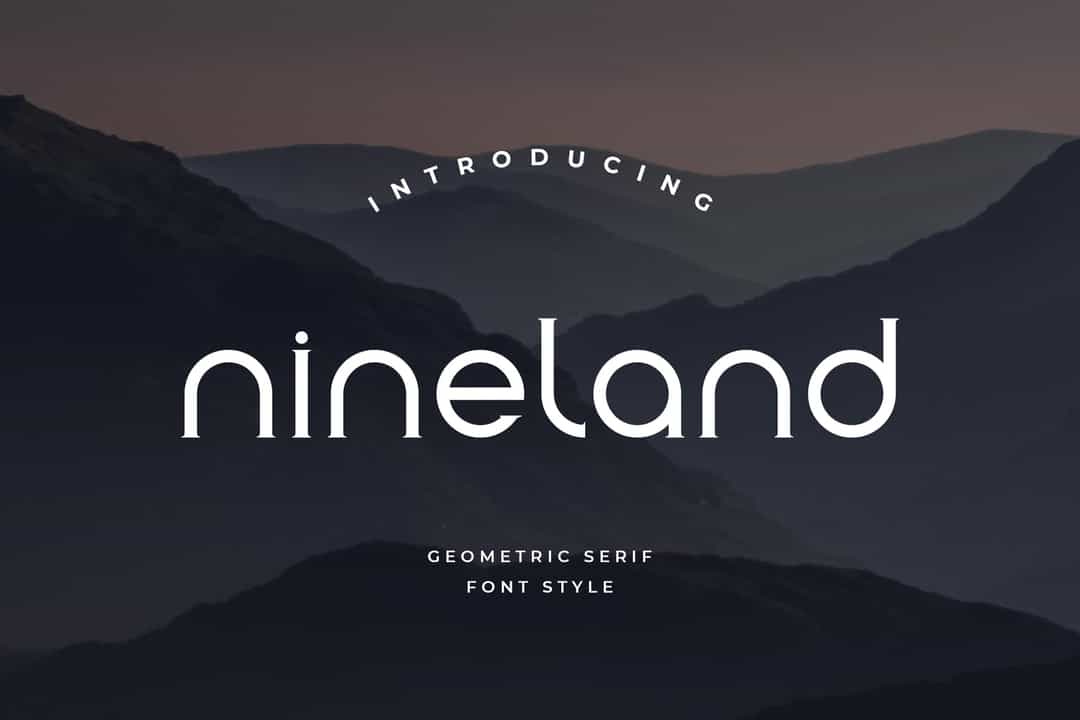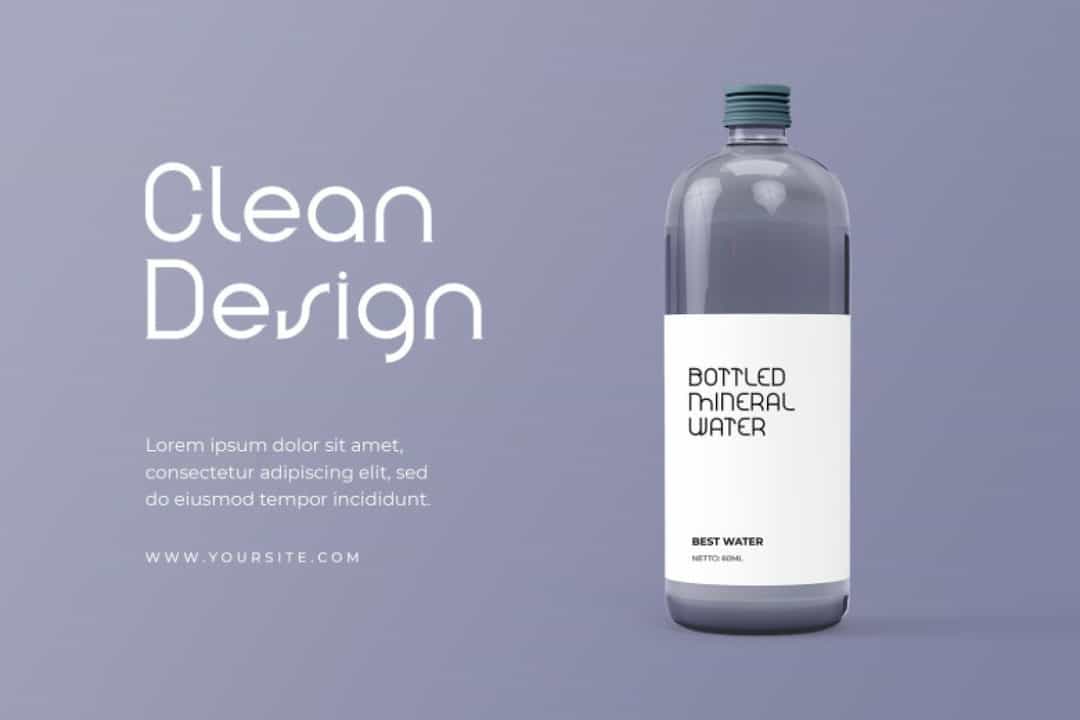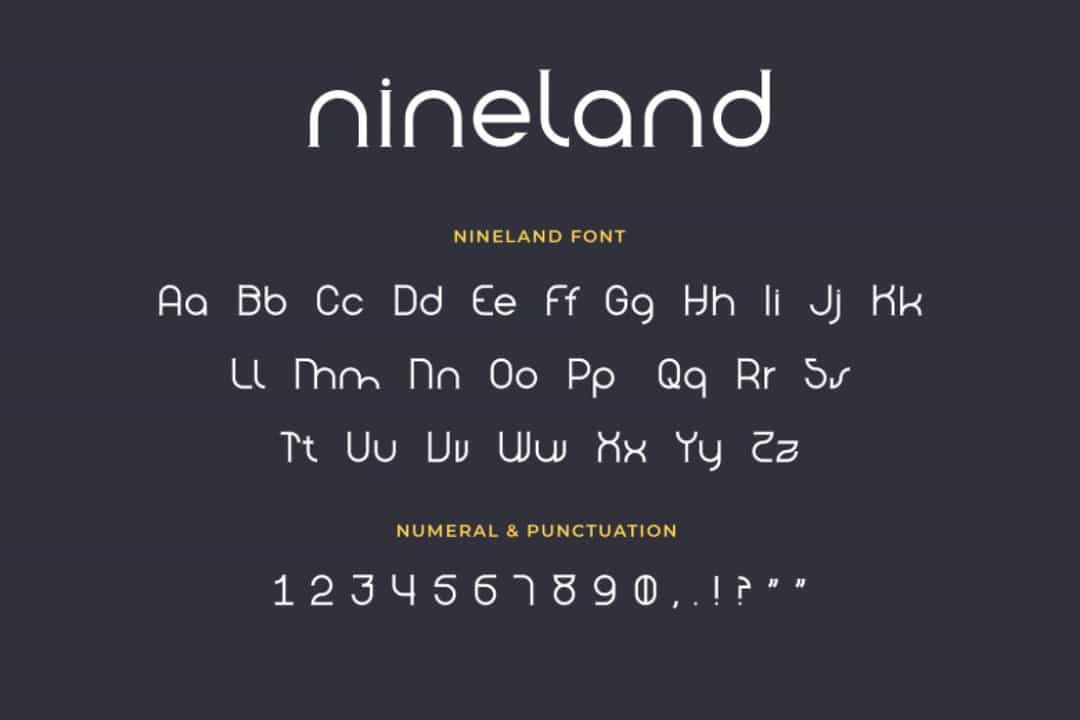
Discover Nineland Geometric Serif Font, part of the Serif Display Basic collection—a versatile and unique font perfect for adding a personal touch to your projects. Download it for free and enjoy crafting designs with style, from invitations to social media posts. This font is available exclusively for personal use, giving you the freedom to create without limits. Unlock your creativity with Nineland Geometric Serif Font today!
Nineland is a beautiful serif font that has a very simple as well as clear geometric shape on both the left and the right side. Containing lower and upper case numbers, letters, symbols, this font always gives a good harmony for projects like branding, product, T-shirt packaging for salons/cafes and product packaging. Enhance the creativity and coolness of your designs immediately!